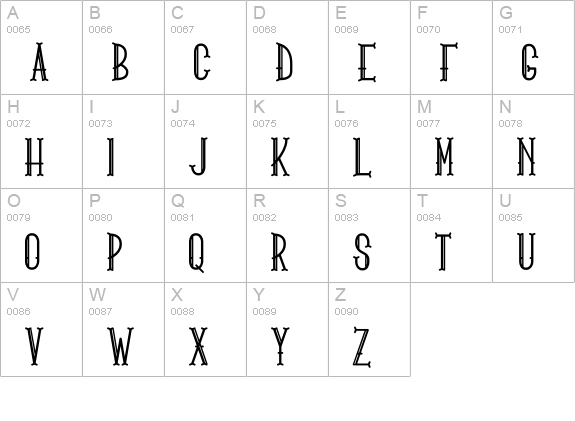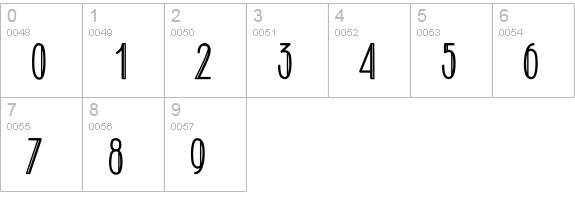
KlangdamBold Regular Font Details
KlangdamBold Regular is the standard, neutral variant in the KlangdamBold typeface family \xE2\x80\x94 well suited to general body text, paragraphs, and standard typographic work.
KlangdamBold Regular font is a versatile and modern typeface that exudes confidence and style. With its bold and striking design, this font is perfect for making a statement in any project. The clean lines and sharp edges of KlangdamBold Regular give it a sleek and professional look that is sure to catch the eye. What sets this font apart is that it is completely free to download at FontsMarket.com. Whether you are working on a branding project, a poster design, or any other creative endeavor, KlangdamBold Regular is the perfect choice to add a touch of sophistication and elegance. Download this font today and elevate your designs to the next level!